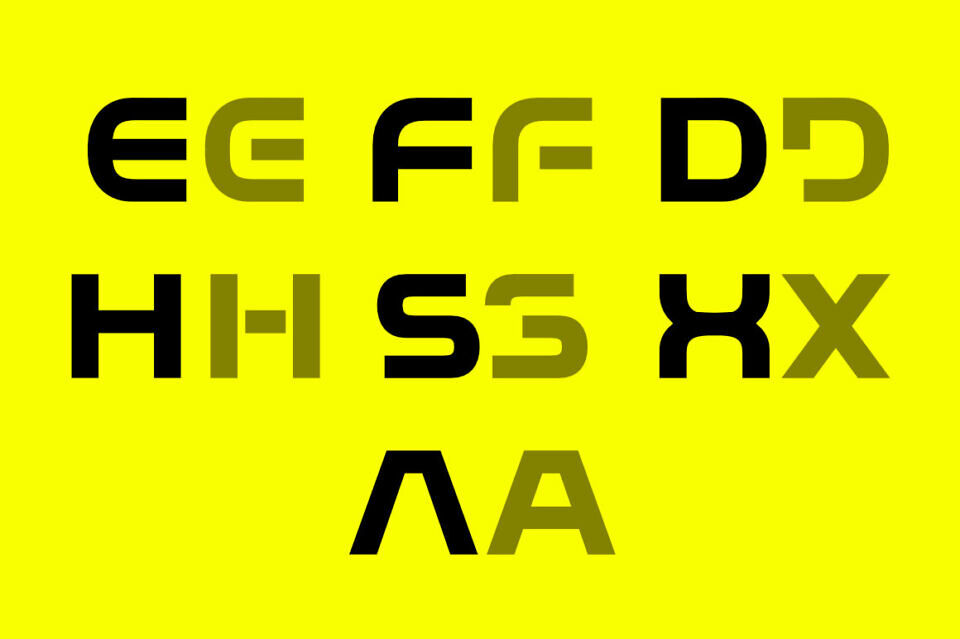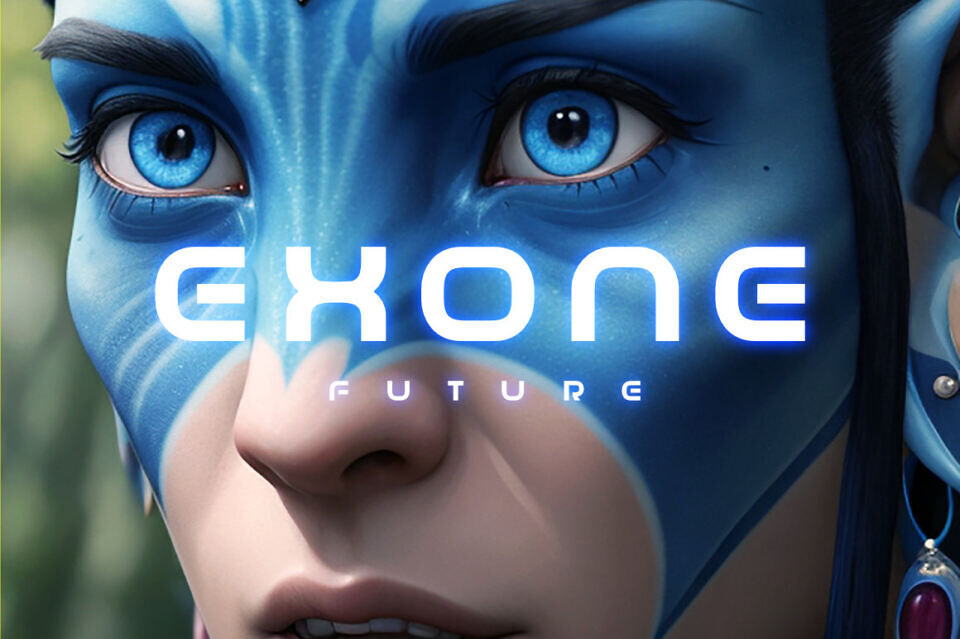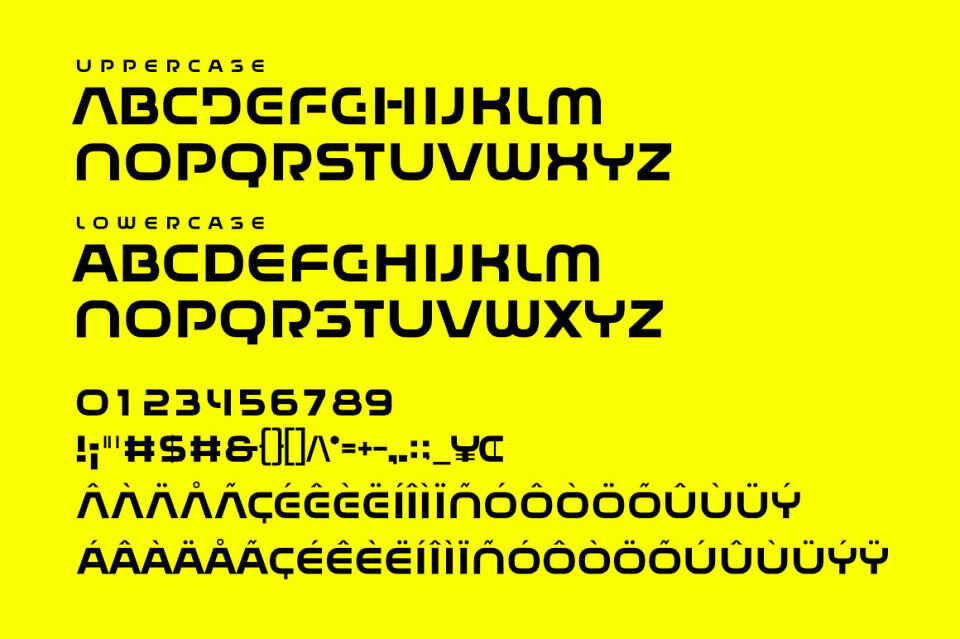
Monoo Logo Font
Introducing Monoo Logo Font by ffeeaarr. Its foundation lies in strong, geometric forms and clean, sans-serif lines, projecting a futuristic and bold presence. The letterforms are often wide, with a consistent stroke width that ensures clarity even at smaller sizes.